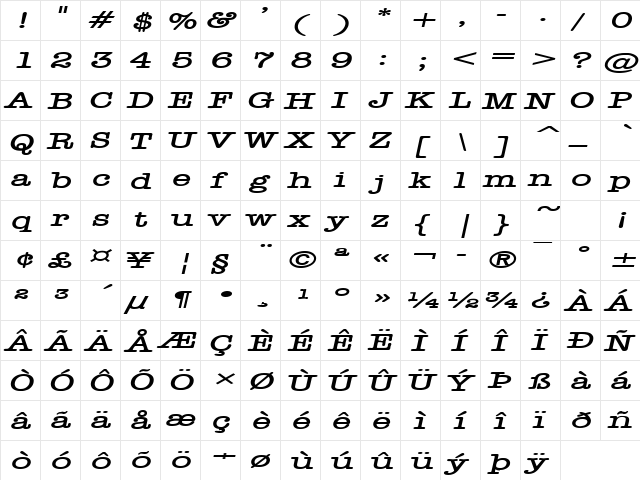
Headline Extended BoldItalic Font Preview
Design Context for Headline Extended Typeface
Headline Extended takes a measured approach to typography — its balanced proportions and neutral character make it a reliable workhorse for both digital and print work. The slanted form adds forward momentum and visual energy. The heavy weight commands attention and anchors typographic hierarchies.
Pro Tip: Try Headline Extended for annotation and caption copy alongside an upright companion — the contrast in angle creates a dynamic but ordered typographic system.